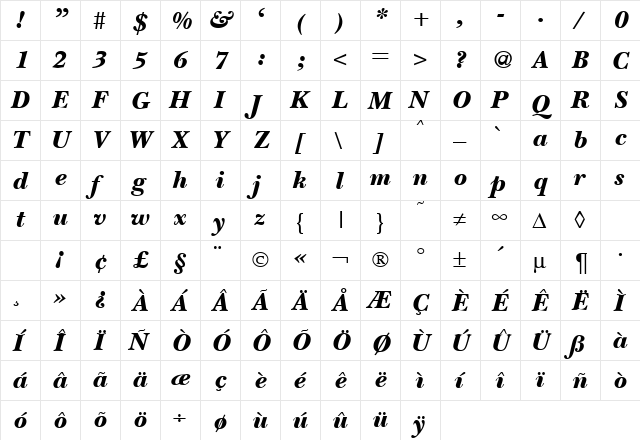
BaskervilleNovaTwoBlack RegularItalic
Design Context for BaskervilleNovaTwoBlack Typeface
BaskervilleNovaTwoBlack takes a measured approach to typography — its balanced proportions and neutral character make it a reliable workhorse for both digital and print work. The dynamic lean of this cut emphasises speed and emphasis in any layout.
Pro Tip: Use BaskervilleNovaTwoBlack for emphasis, pull quotes, and subheadings where its slanted energy can add rhythm to the layout.